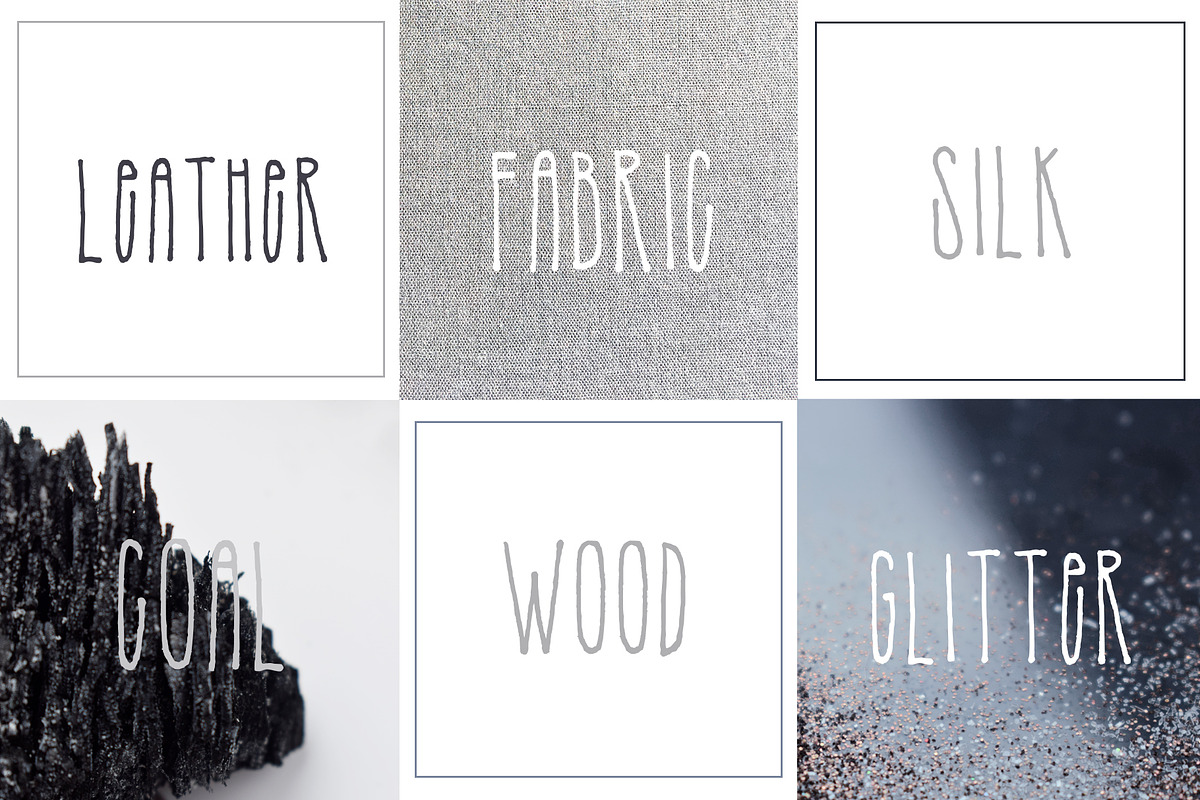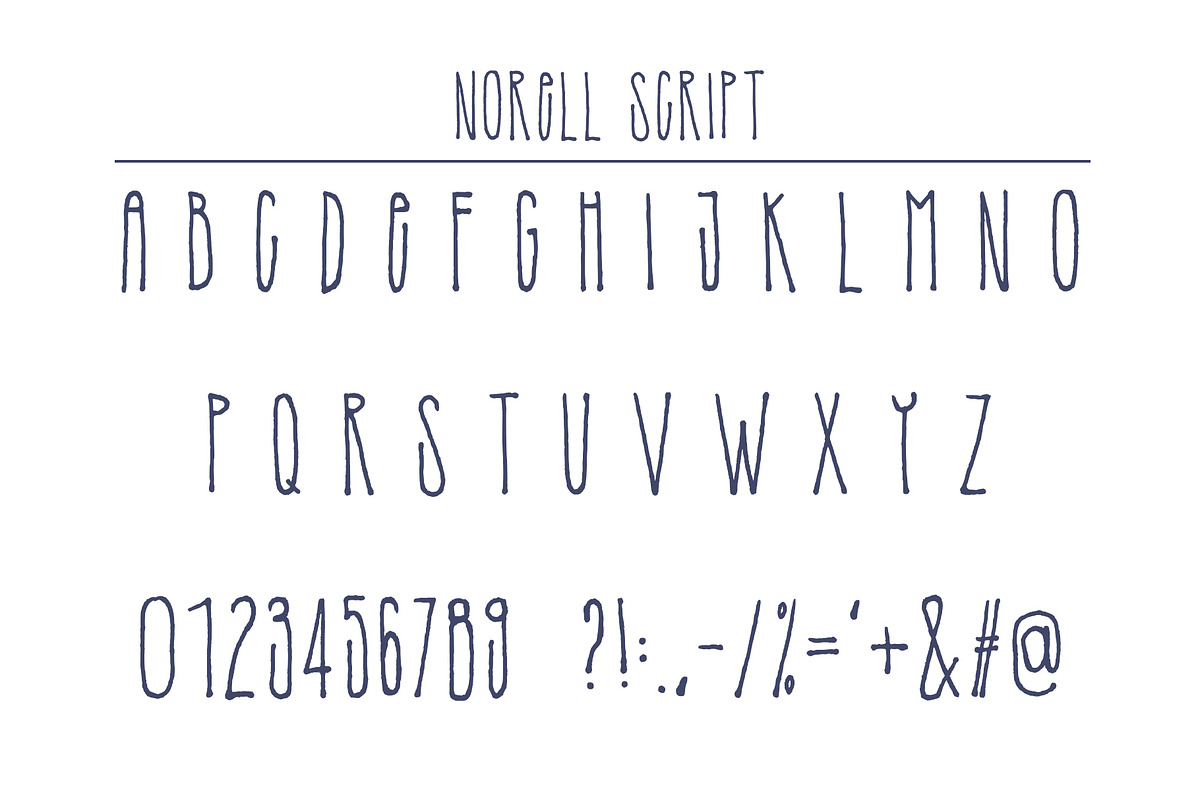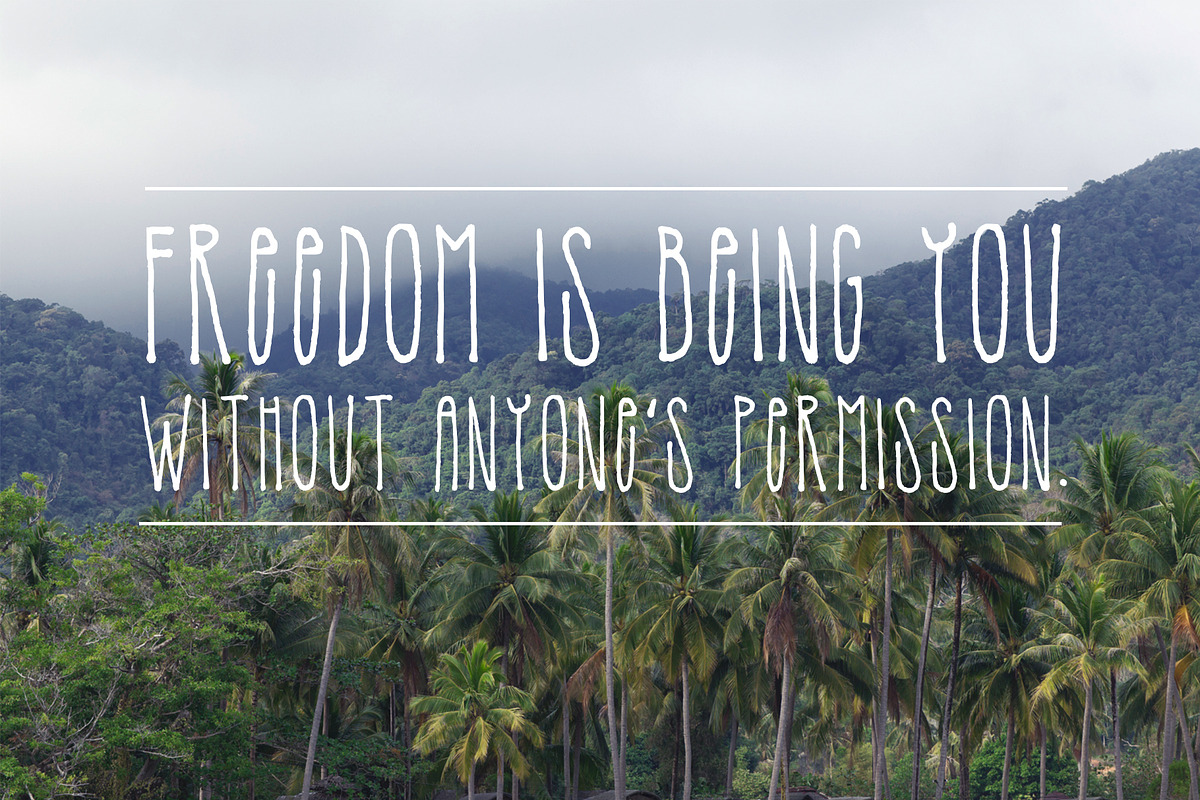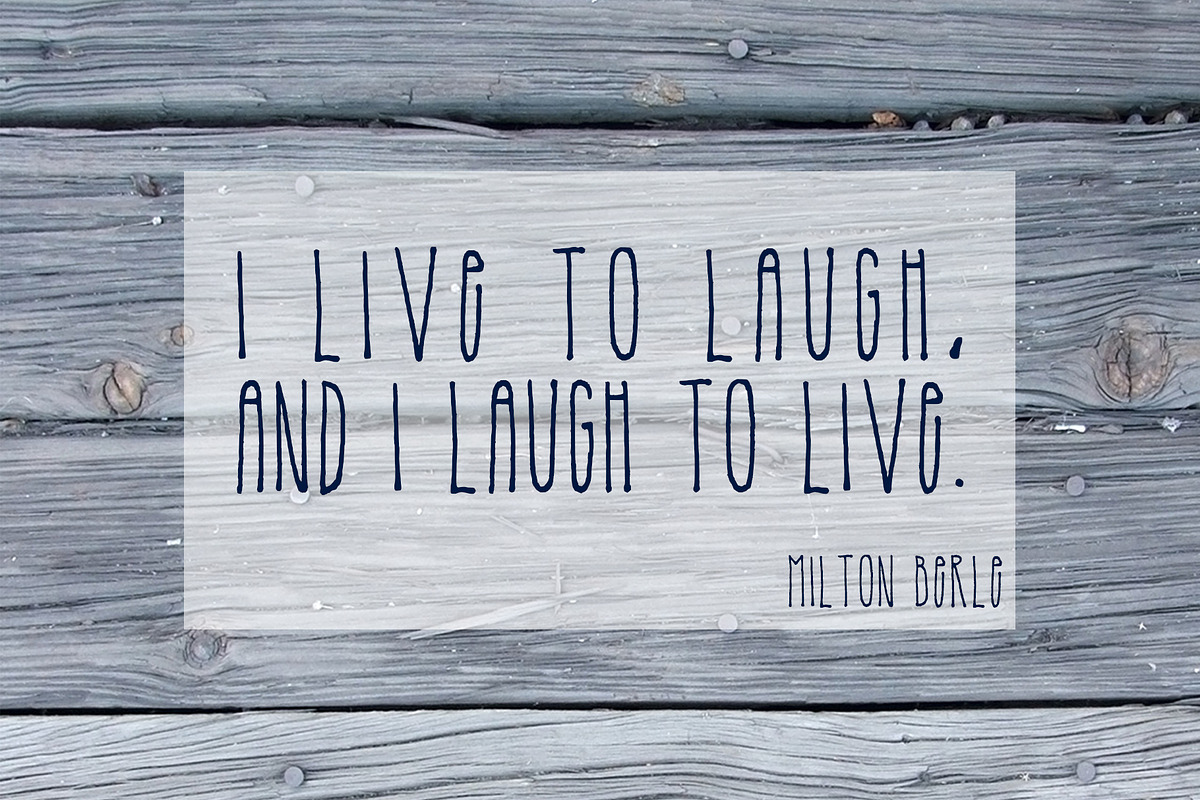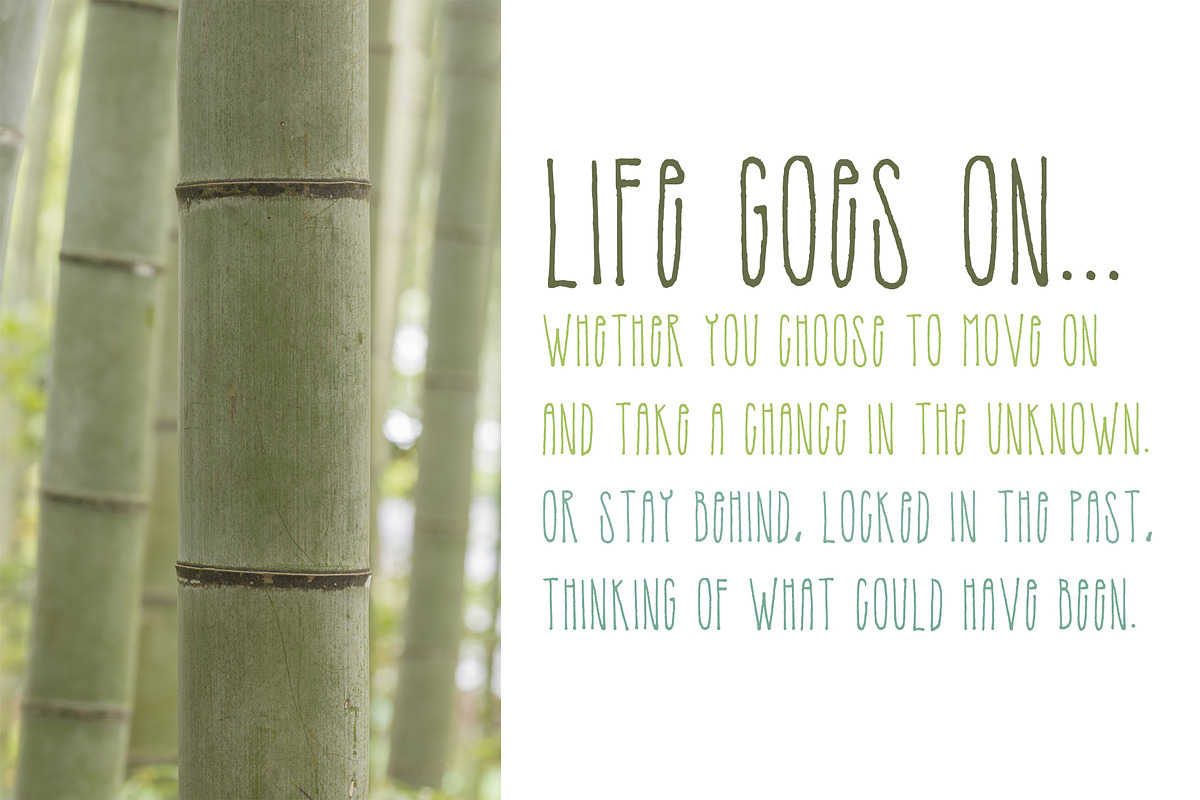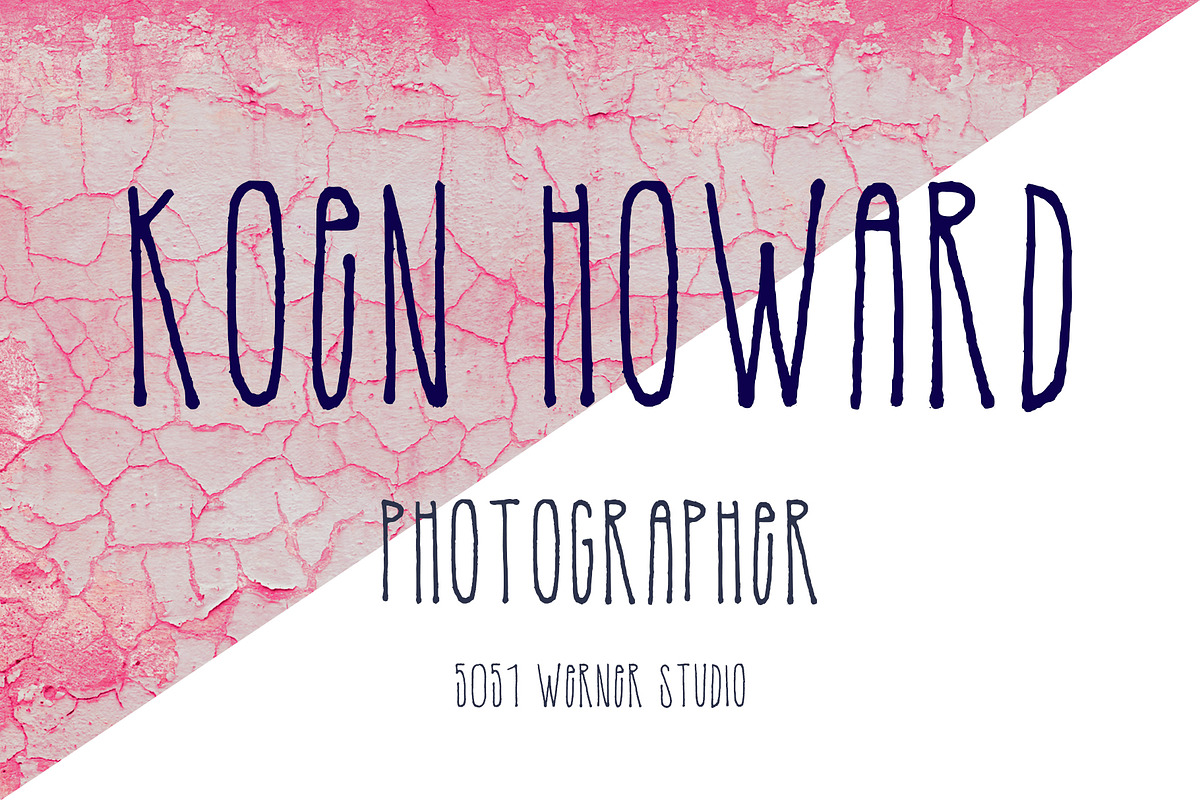
Norell Font
Introducing Norell, a freestyle handwritten font.💗A simple lengthwise script, perfect for any graphic and logo designs.
- Norell font contains uppercase characters, numbers and punctuations.